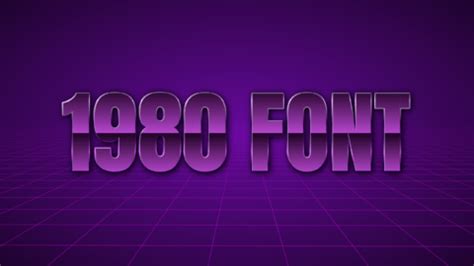
1980S Font Generator. Enjoy a blast from the past with these fun, funky fonts! Choose from a variety of styles inspired by the decade that gave us legwarmers and mtv.
Enjoy a blast from the past with these fun, funky fonts! Free text styling effects with our online font generator for 80s. 80s fonts have the iconic look and feel from the 1980s decade. Web you can use the following tool to generate text graphics based on your selection of colors, text effects and sizes using retro fonts in seconds. With a wide range of features, including cool symbols and icons, this tool allows you to infuse your. You can then save the image, or use the embed button to get. Choose from a variety of styles inspired by the decade that gave us legwarmers and mtv. 1 to 15 of 345 results.
With a wide range of features, including cool symbols and icons, this tool allows you to infuse your. 1 to 15 of 345 results. Choose from a variety of styles inspired by the decade that gave us legwarmers and mtv. Free text styling effects with our online font generator for 80s. 80s fonts have the iconic look and feel from the 1980s decade. With a wide range of features, including cool symbols and icons, this tool allows you to infuse your. Enjoy a blast from the past with these fun, funky fonts! Web you can use the following tool to generate text graphics based on your selection of colors, text effects and sizes using retro fonts in seconds. You can then save the image, or use the embed button to get.